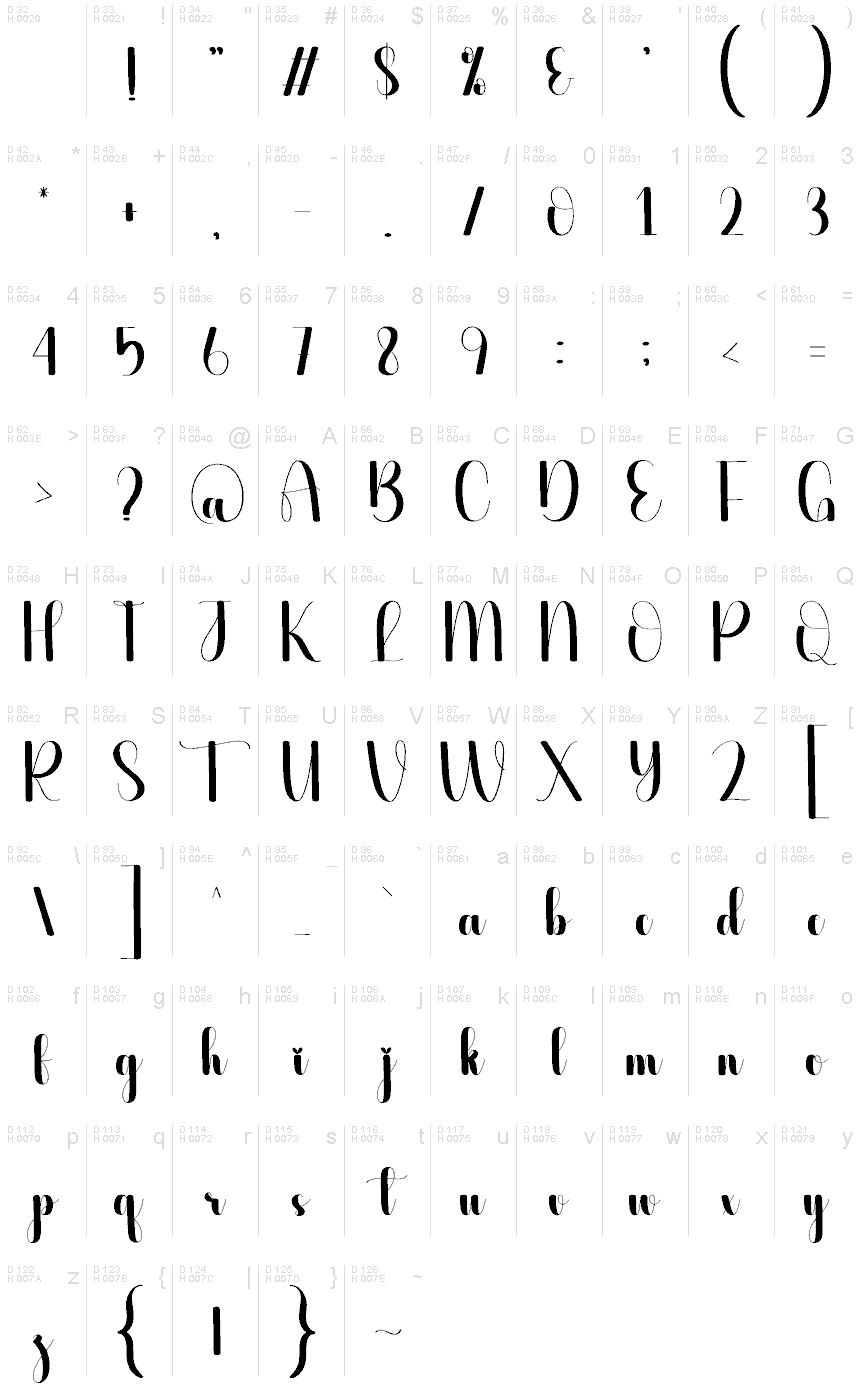
Sad
Sad font by Scratchones is an expressive calligraphy typeface with an elegant touch. Sophisticated and decorative, the script consists of curved lines with a classic charm that steals the show. Since most of the elegance is in its design and style, you won’t need to add lots of other elements to your designs when you put it to use.
This free calligraphy font can be used in art projects, advertisements, marketing campaigns, postcards, greeting cards or invitations. You can also use it in book covers or branding projects such as those related to beauty products or expensive chocolate products!